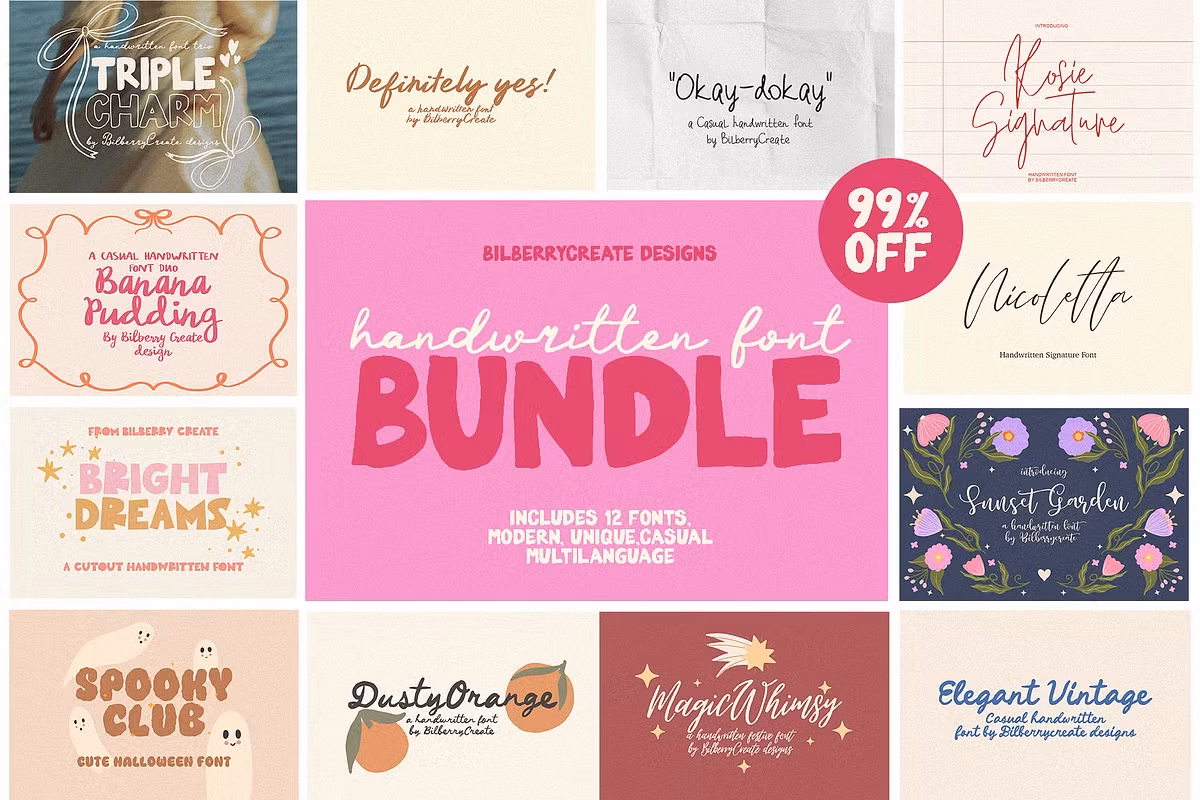
This comprehensive collection is perfect for personal branding, wedding stationery, greeting card design, boutique packaging, handmade craft labels, social media quotes, journal covers, and artisan product marketing. Its authentic character makes it ideal for projects requiring personal touch, warmth, and genuine human connection in digital communications.
Handwritten Font Bundle 2024 is exciting because it offers an entire library of authentic handwriting styles that capture the intimate beauty of personal penmanship with modern digital functionality. The collection features diverse handwriting personalities - from elegant cursive scripts to casual everyday writing - ensuring perfect matches for any project requiring human authenticity. Its 2024 edition includes the latest trends in handwritten typography while maintaining timeless appeal.
The Handwritten Font Bundle 2024 family includes dozens of unique handwritten styles with varying weights, slants, and character personalities, along with decorative elements and connecting ligatures. Many fonts feature multiple stylistic alternates, natural variations, and authentic imperfections that enhance the handcrafted aesthetic.
Whether you're developing personal brands, intimate marketing campaigns, or heartfelt design projects, Handwritten Font Bundle 2024 Free Download provides genuine human authenticity with contemporary versatility. This extensive collection transforms digital communications into personal connections that resonate with audiences craving authentic experiences in an increasingly digital world. Its diverse range ensures you'll always have the perfect handwritten style for any occasion, making it an indispensable resource for designers who specialize in creating meaningful, personal connections through Handwritten Font Bundle 2024 Free Download typography.